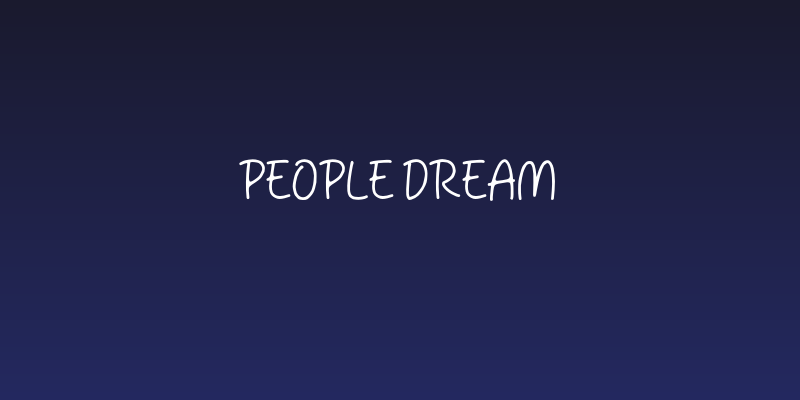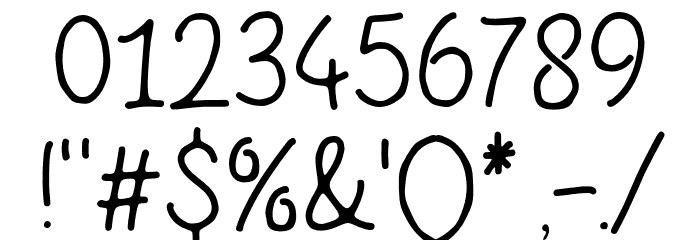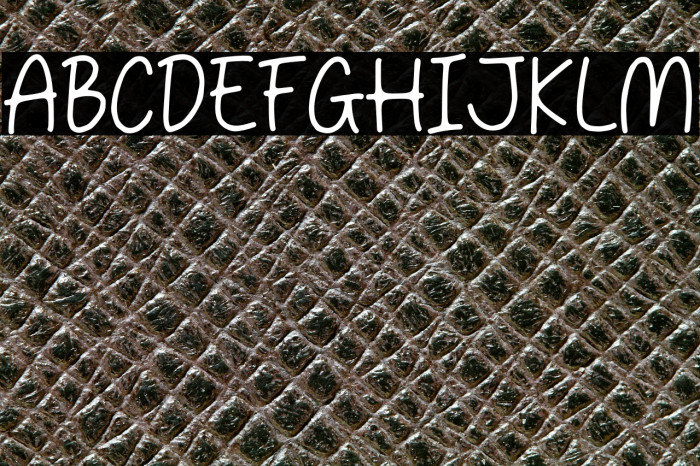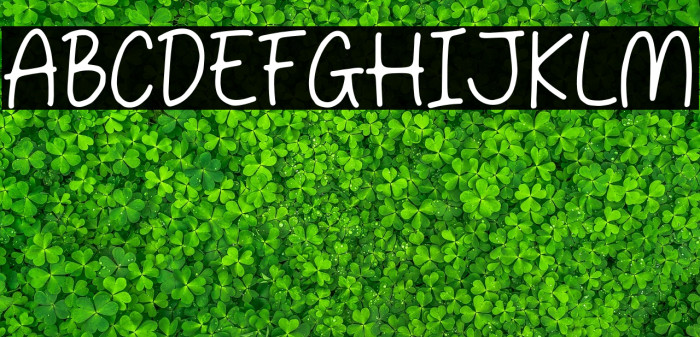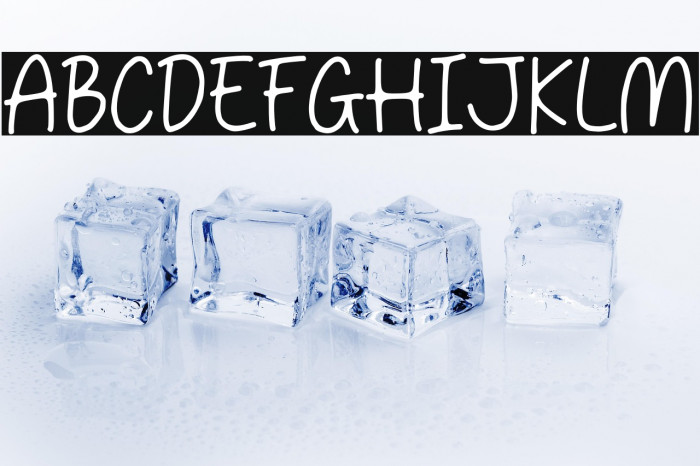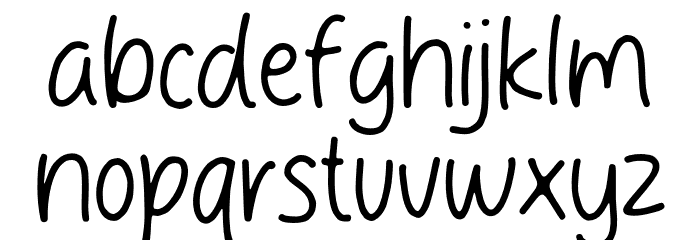
People Dream Font
People Dream Description
This font features a playful and casual handwritten style, characterized by its rounded and slightly irregular letterforms. The strokes are consistent in width, providing a uniform appearance that enhances readability while maintaining a relaxed and informal vibe. The uppercase and lowercase letters are well-balanced, with a slight slant that adds to the font's dynamic feel. Numbers and special characters are crafted with the same attention to detail, ensuring a cohesive look across all text elements. This font is ideal for projects that require a personal touch, such as greeting cards, invitations, or social media graphics.
| Proposed Projects | Greeting cards, invitations, social media graphics, children's books. |